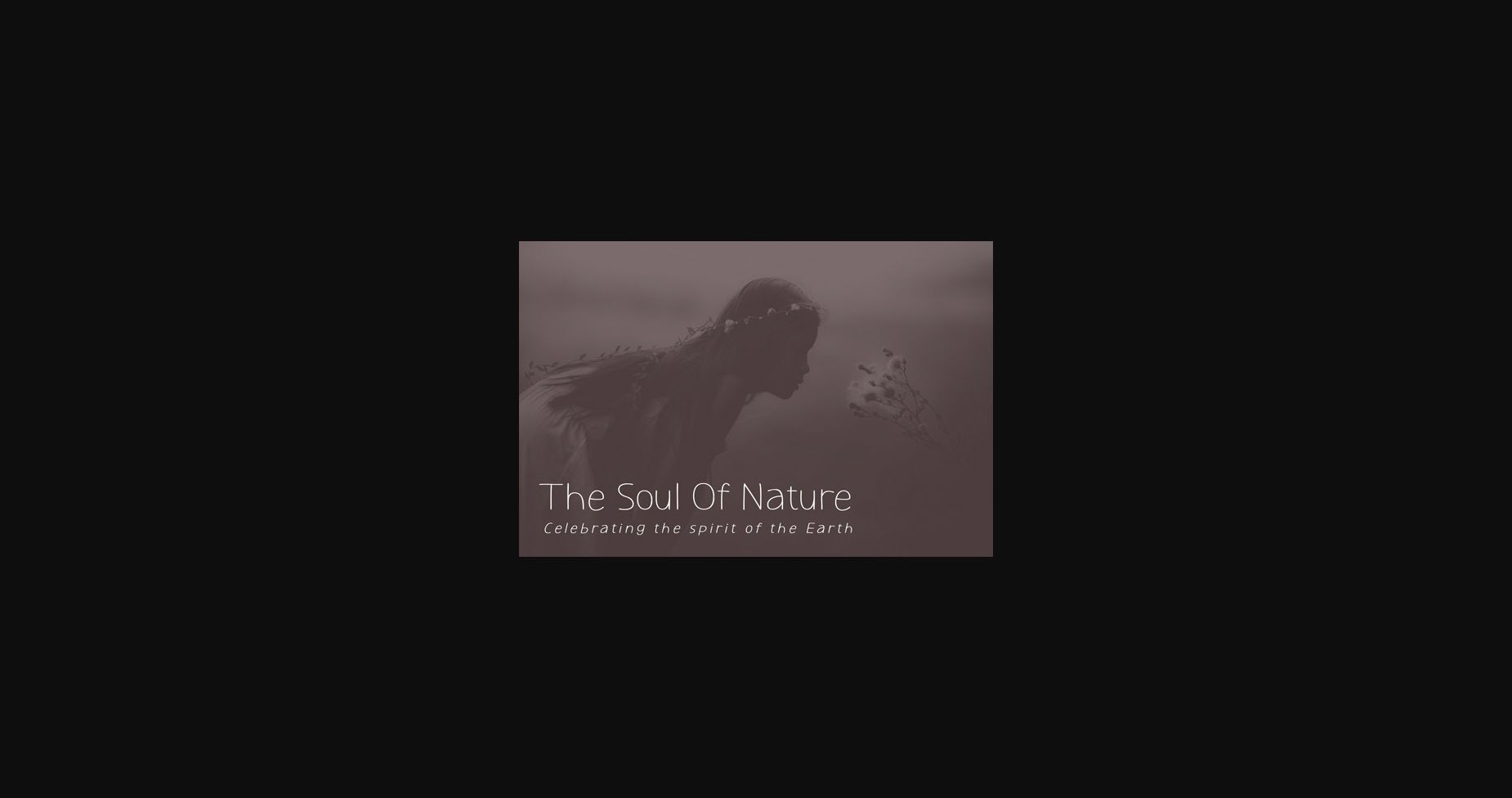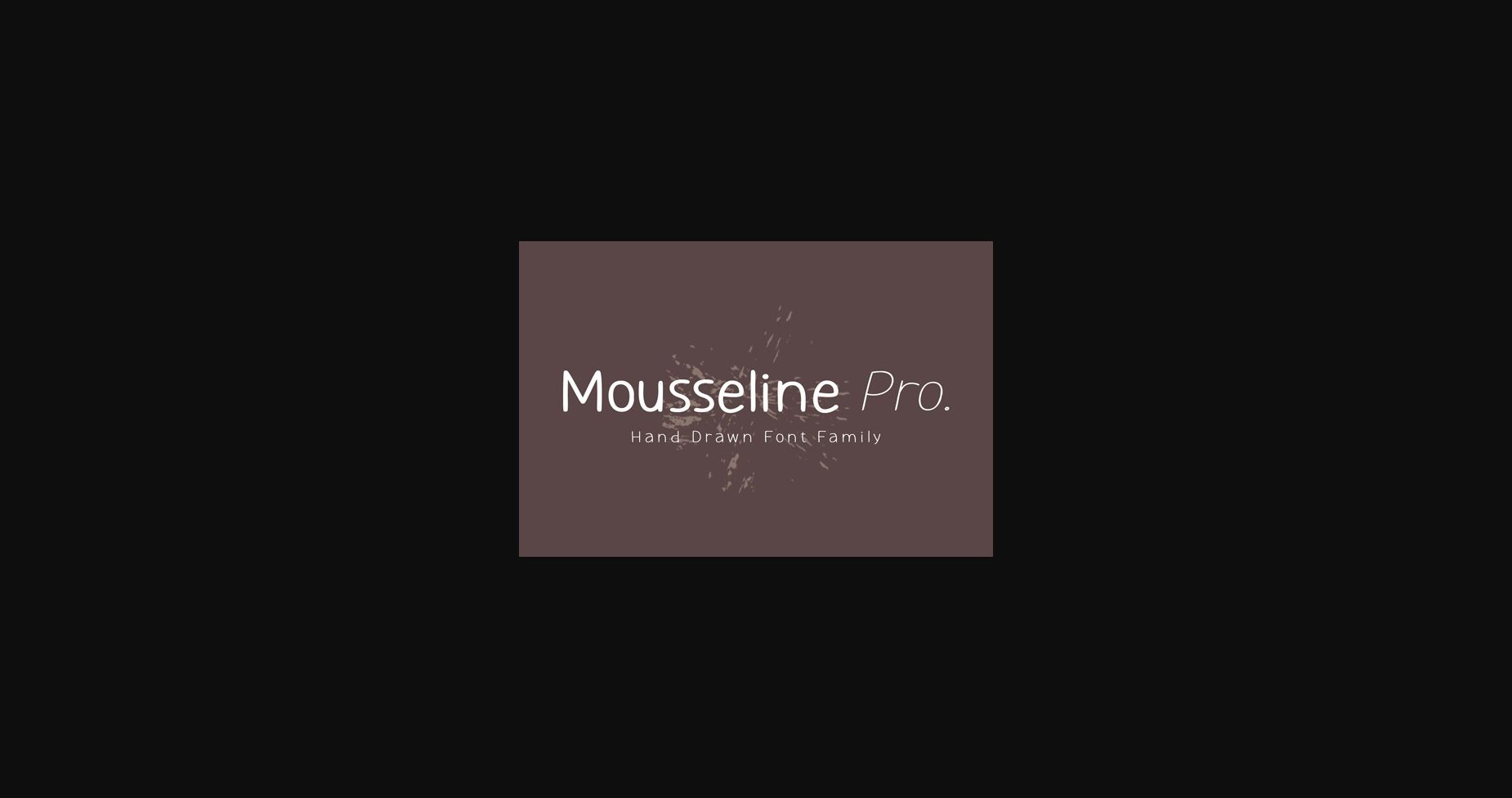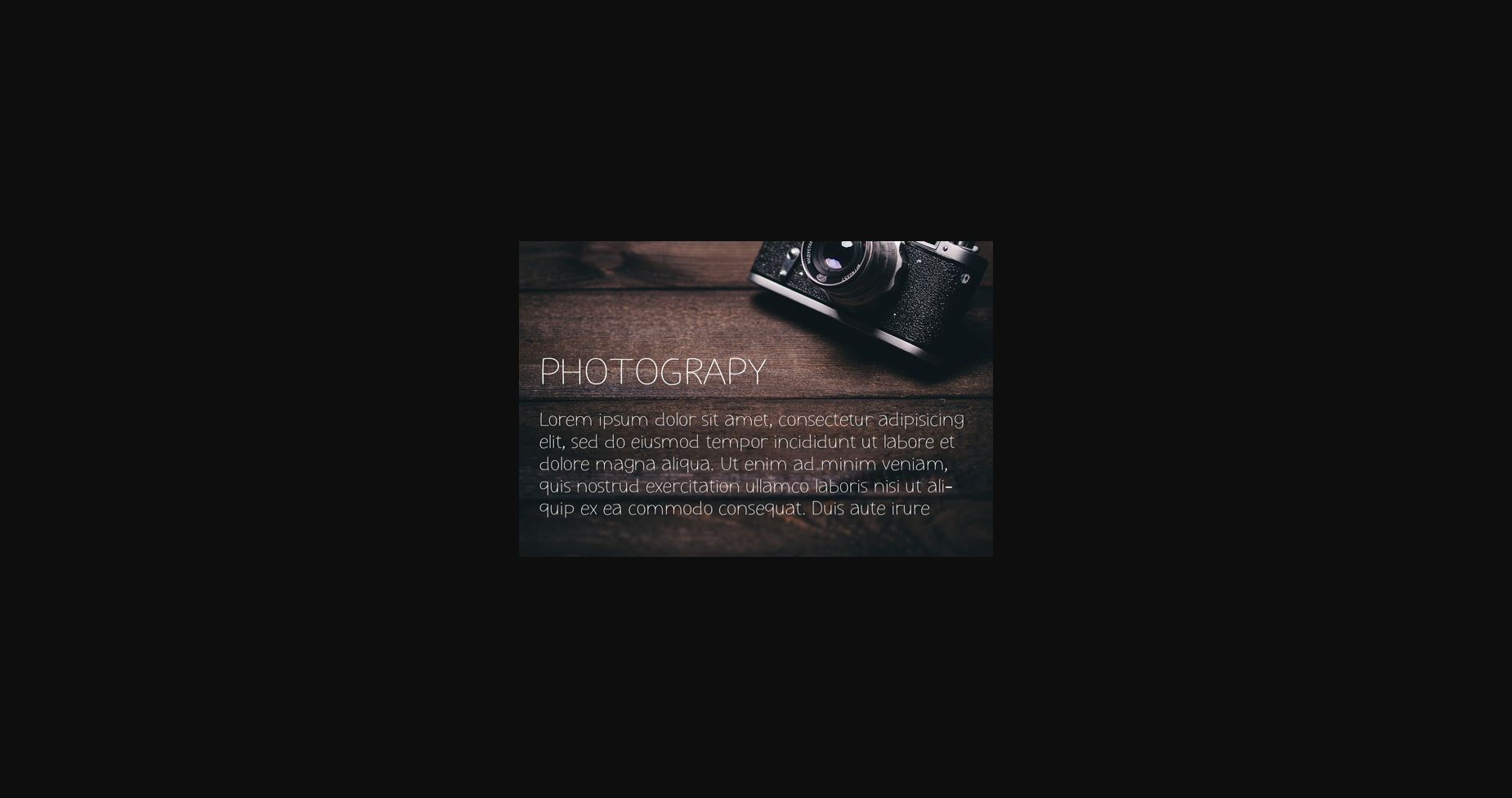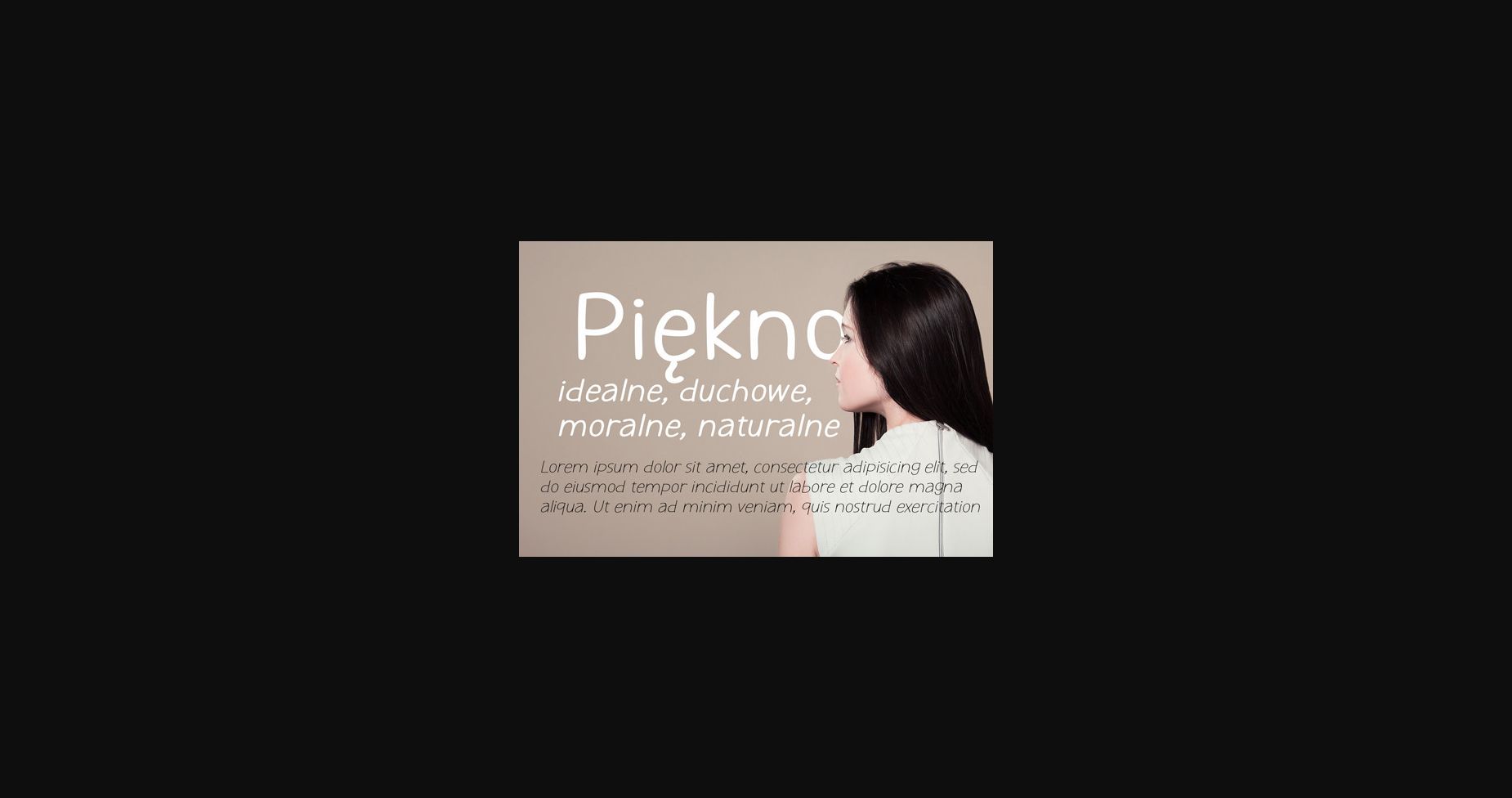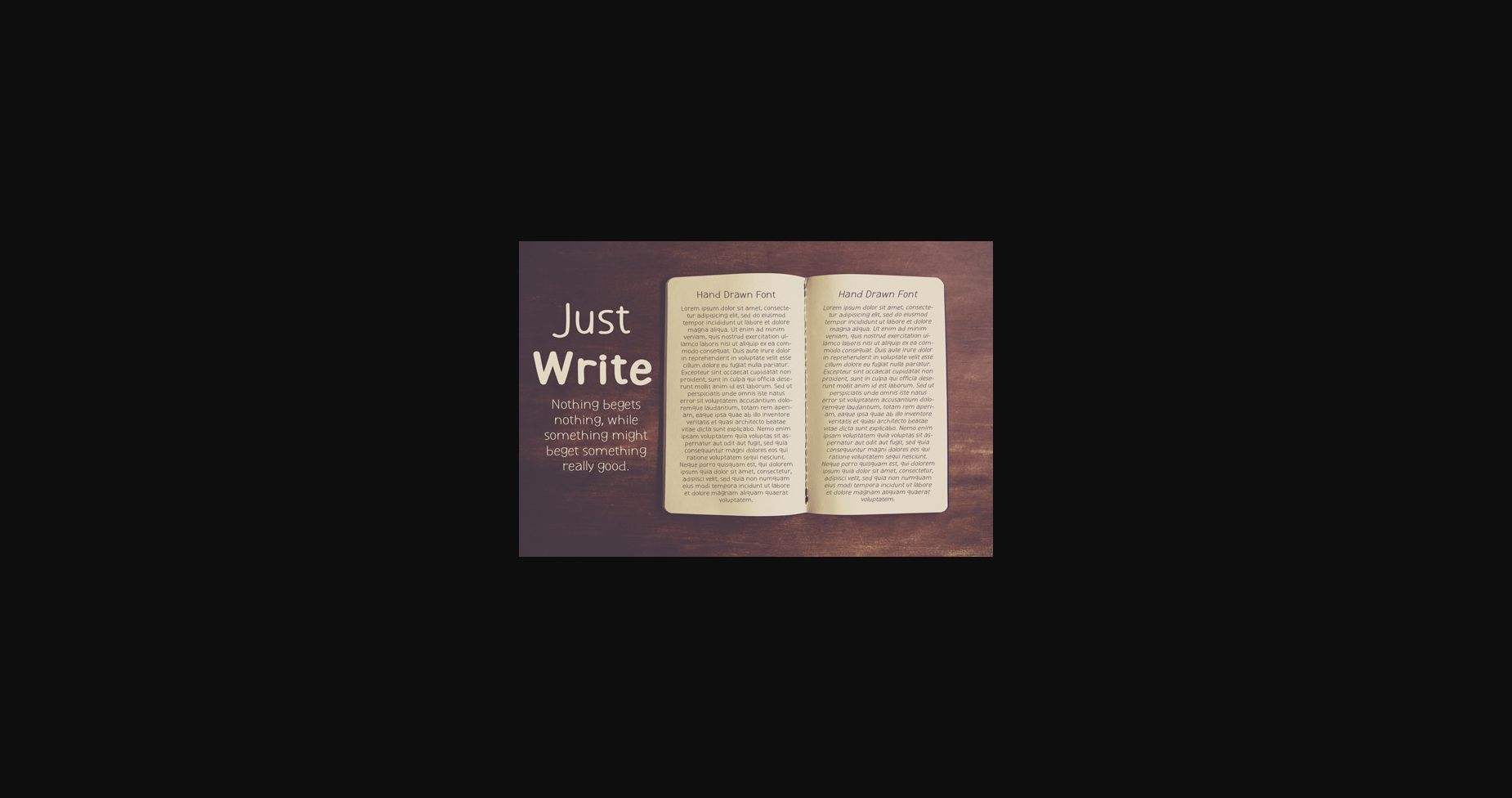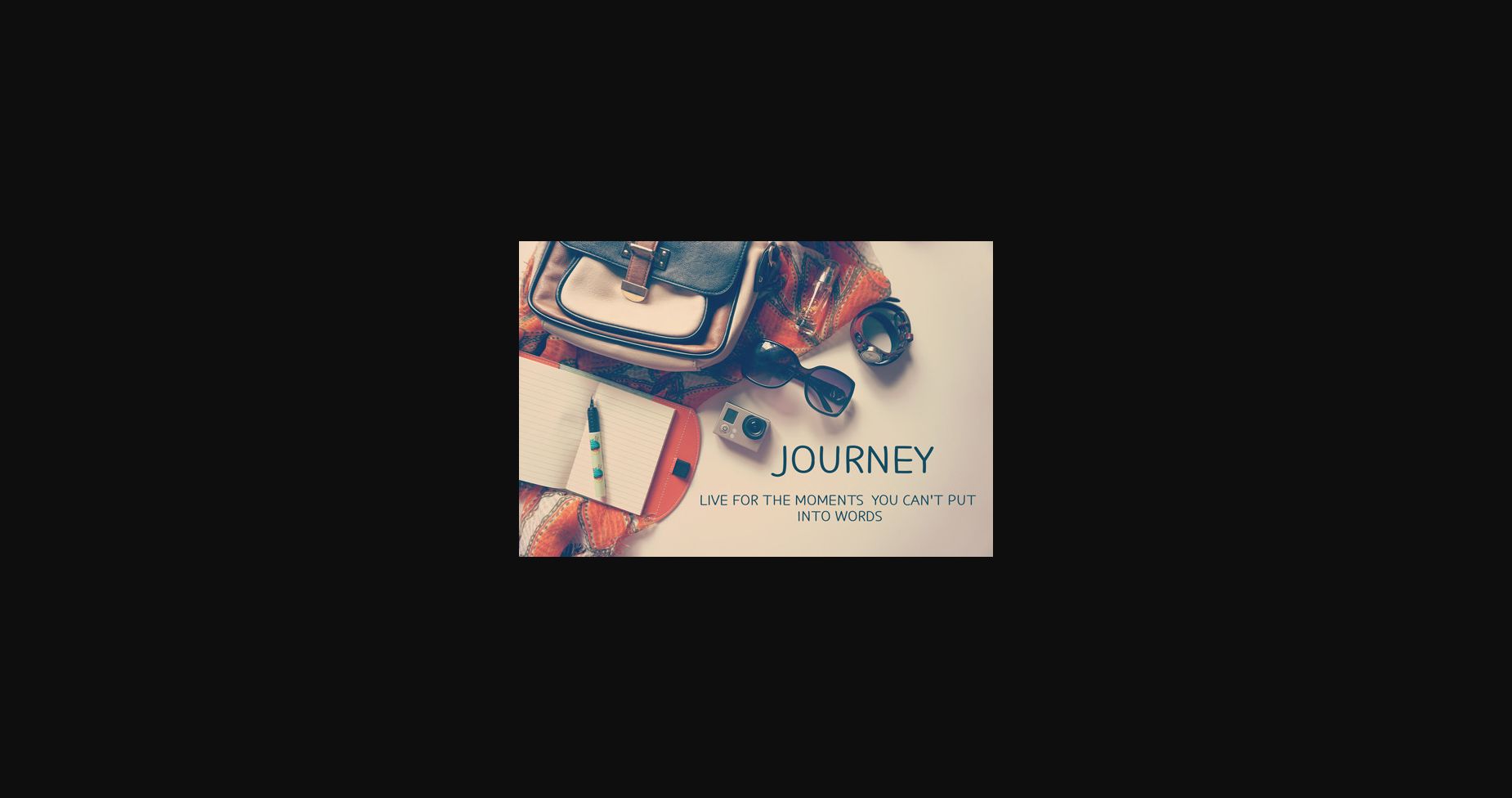
Mousseline Pro Font
About Mousseline Pro Font
Mousseline Pro is a minimal and neat sans serif font. It can easily be matched to an incredibly large set of projects, so add it to your creative ideas and notice how it makes them stand out!